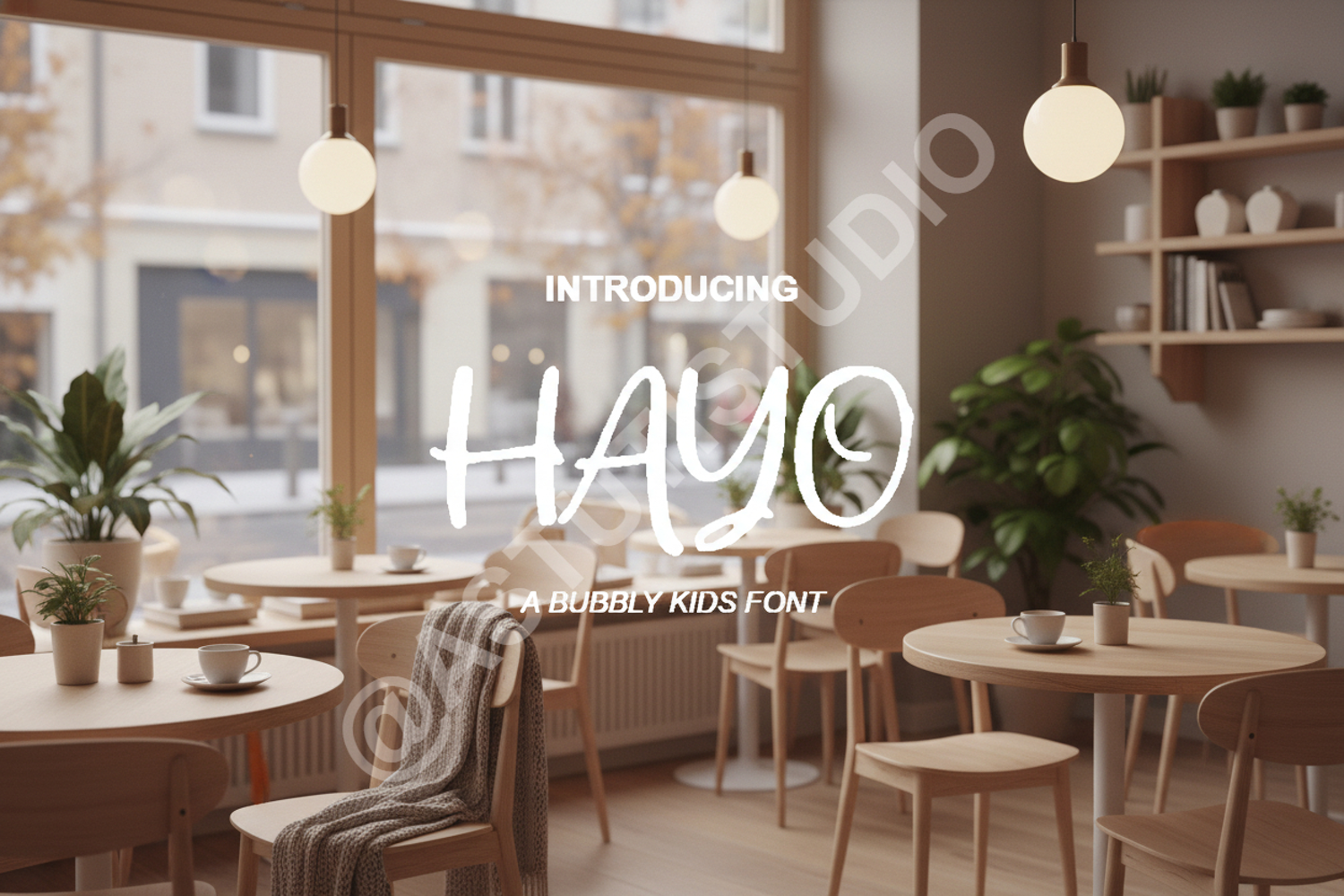
Hayo | Modern Minimalist Sans Serif Typeface
Hayo
Hayo is a premium sans serif typeface designed with a focus on modern minimalism and exceptional legibility. Its clean lines and balanced proportions make it a versatile powerhouse for any designer's toolkit. Whether you are crafting a high-end brand identity or a sleek website interface, Hayo provides a sophisticated touch that stands out through its timeless elegance and professional structure.